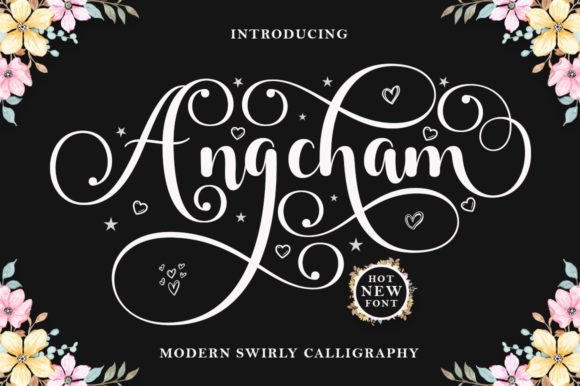
Journey into the Realm of Enchantment with Angcham: A Script Font Steeped in Majesty
In the realm of design, where creativity dances with expression, Angcham emerges as a captivating script font poised to enchant your digital creations. Its strokes, crafted with the grace of a seasoned artisan, intertwine like whispers of a forgotten fairytale, inviting you to weave tales of elegance and allure.
Angcham's ethereal presence lends itself seamlessly to a myriad of design endeavors, from the delicate strokes of wedding invitations to the bold statements of business cards. Its versatility knows no bounds, allowing it to elevate humble email signatures into works of art or transform mundane banner ads into captivating visual spectacles.
With Angcham as your creative ally, you possess the power to evoke emotions and forge connections that transcend mere words. Its inherent beauty dances across the screen, captivating the senses and leaving an indelible mark on the hearts of your audience.
Angcham: A Font Symphony of Elegance and Allure
Angcham's essence lies not only in its aesthetic charm but also in its technical prowess. Encoded with precision, this font grants you effortless access to a treasure trove of glyphs and swashes, empowering you to adorn your designs with intricate embellishments and flourishes.
This symphony of elegance and allure awaits your creative touch, inviting you to orchestrate visual masterpieces that resonate with your audience. Whether you seek to craft heartfelt wedding invitations that evoke the magic of a timeless romance or design business cards that exude an aura of professionalism and sophistication, Angcham stands ready to serve as your trusted companion.
Unlock the Enchantment Within: Angcham Awaits Your Creative Embrace
Angcham beckons you to unleash your imagination and embark on a creative odyssey where boundaries dissolve and dreams take flight. Its enchanting aura promises to transform your designs into captivating expressions of art, leaving your audience spellbound.
Do not resist the allure of Angcham. Embrace its beauty, harness its power, and watch in awe as your creative visions materialize into stunning realities. The world of design awaits your artistry, and Angcham stands poised to guide you towards greatness.